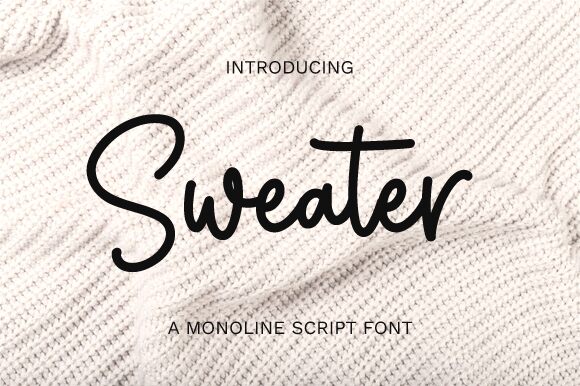
Sweater
Sweater, designed by Graphix Line Studio, exudes a warm and inviting vibe that is synonymous with its cozy namesake. This semi-light handwritten font boasts an aesthetic appeal that combines a personal touch with effortless elegance. Sweater's flowing, easy-to-read characters are imbued with a sense of familiarity and charm, making it an excellent choice for design projects that require a touch of humanity and intimacy.
With its handwritten style, Sweater stands out in applications where a bespoke or artisanal feel is desired. From bespoke invitations to branding materials for boutique businesses, this font adds a genuine layer of sophistication. Its semi-light weight ensures legibility while retaining the delicate nuances characteristic of hand-drawn typefaces.
Embrace the distinctive flair of Sweater to infuse your creative endeavors with personality and warmth that only a font of this caliber can deliver. Whether you're crafting social media graphics or enhancing editorial content, Sweater provides versatility without compromising on style or readability.